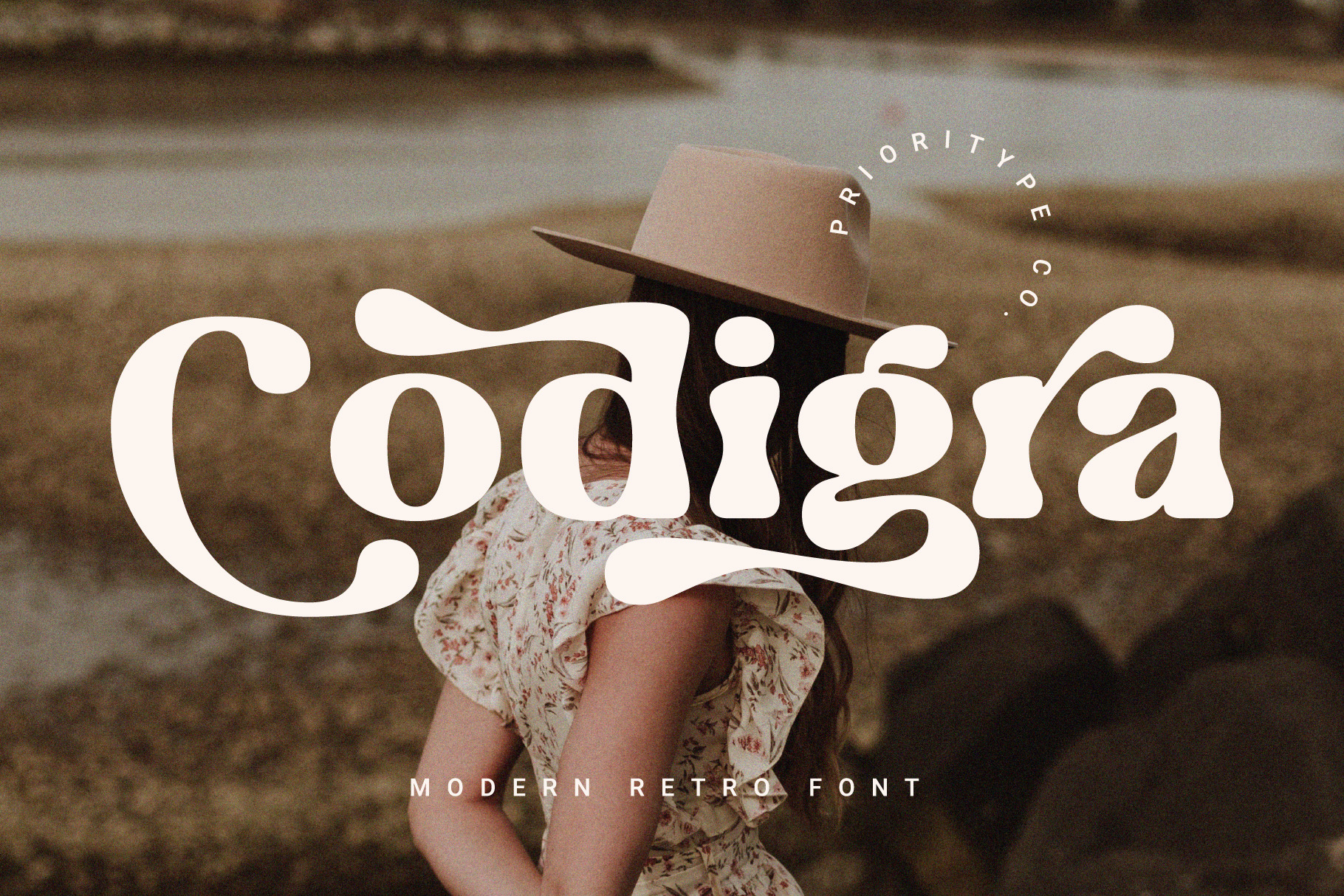
Codigra - Modern Retro Font
Codigra is a bold serif font with a modern and retro style. With its unique shape and attractive alternative characters, it is perfect for designs such as logos or visual branding touches.
- Features: Uppercase, Lowercase, Numeral, Punctuation, Multilingual, Ligatures, Alternates & PUA Encoded.